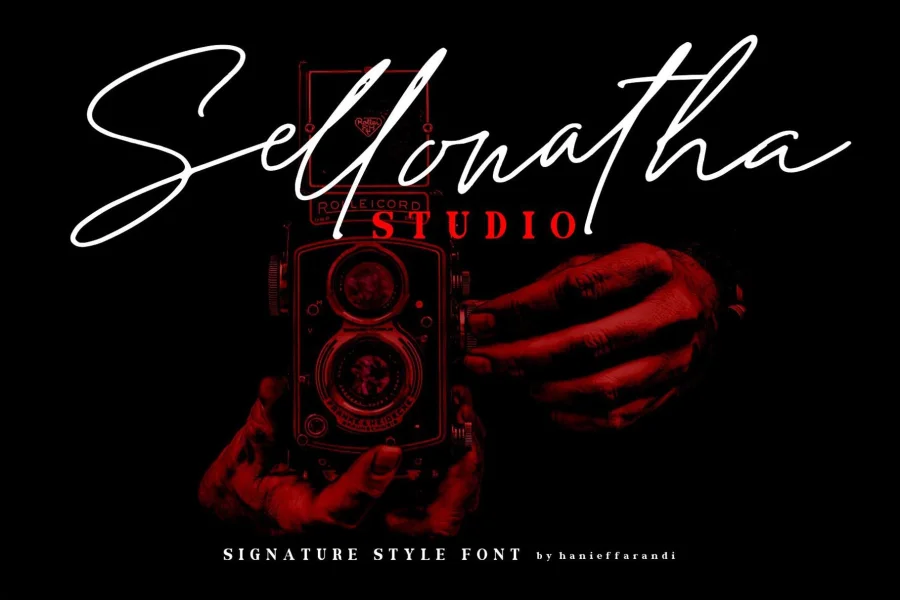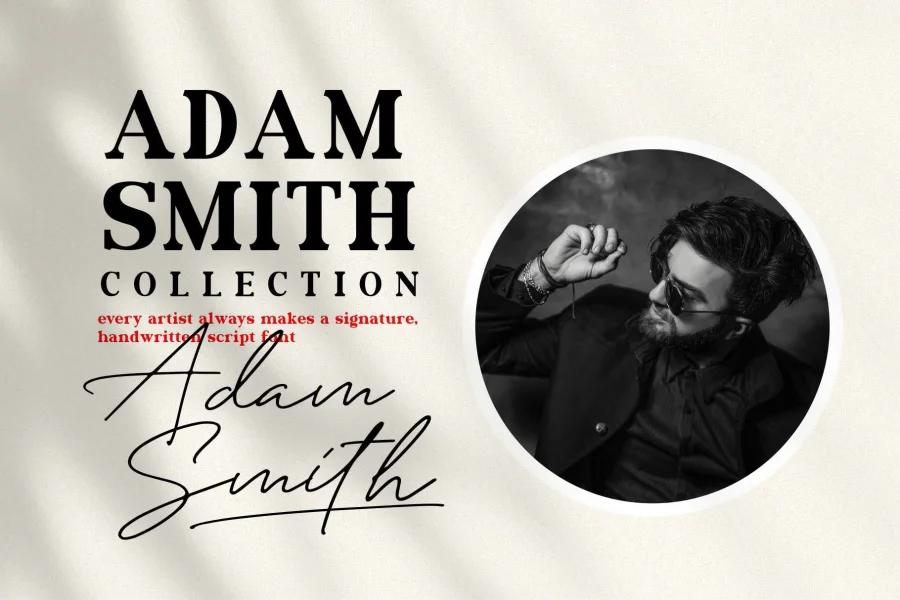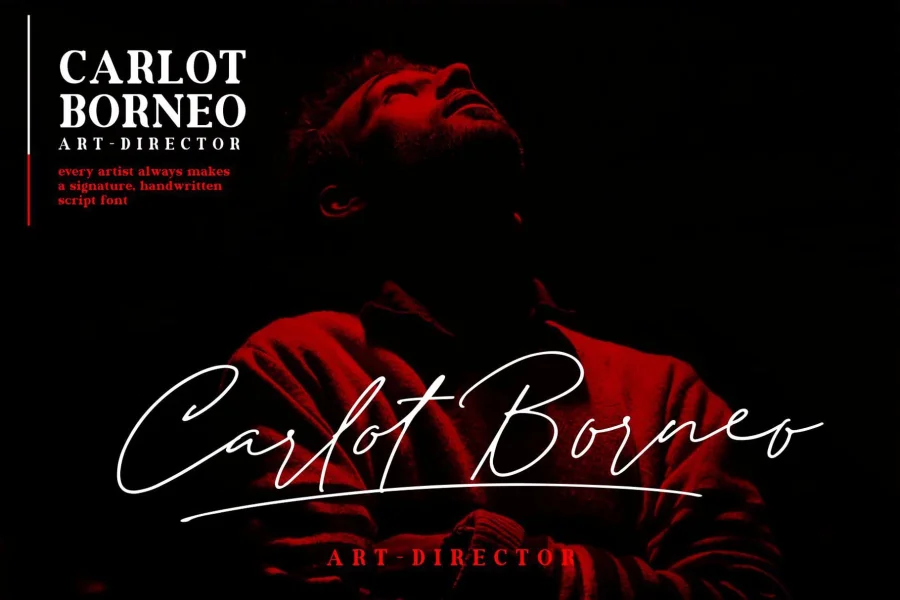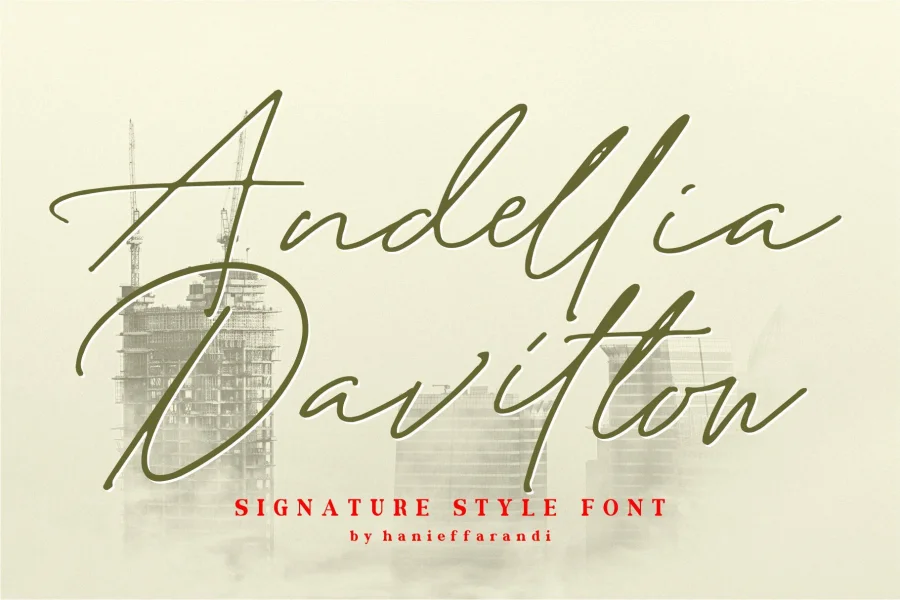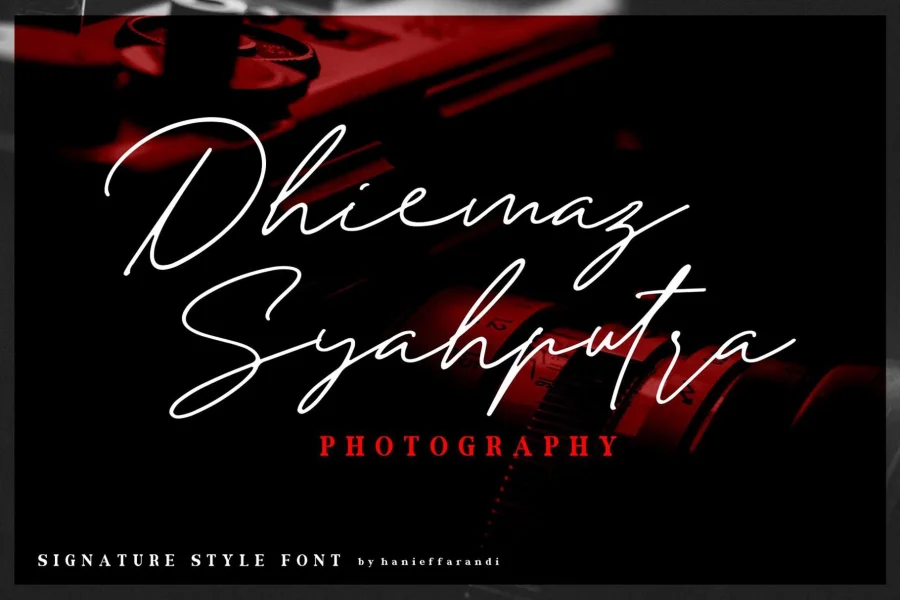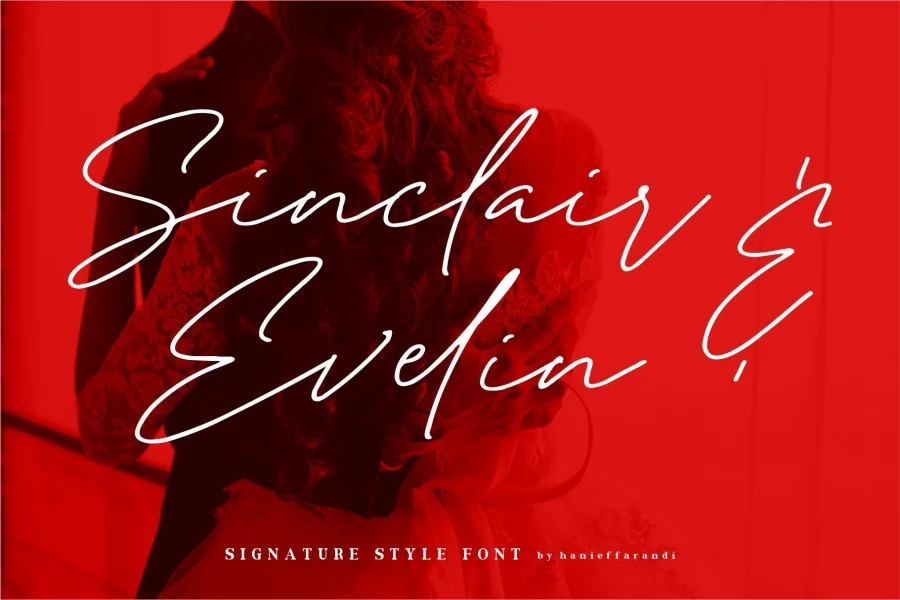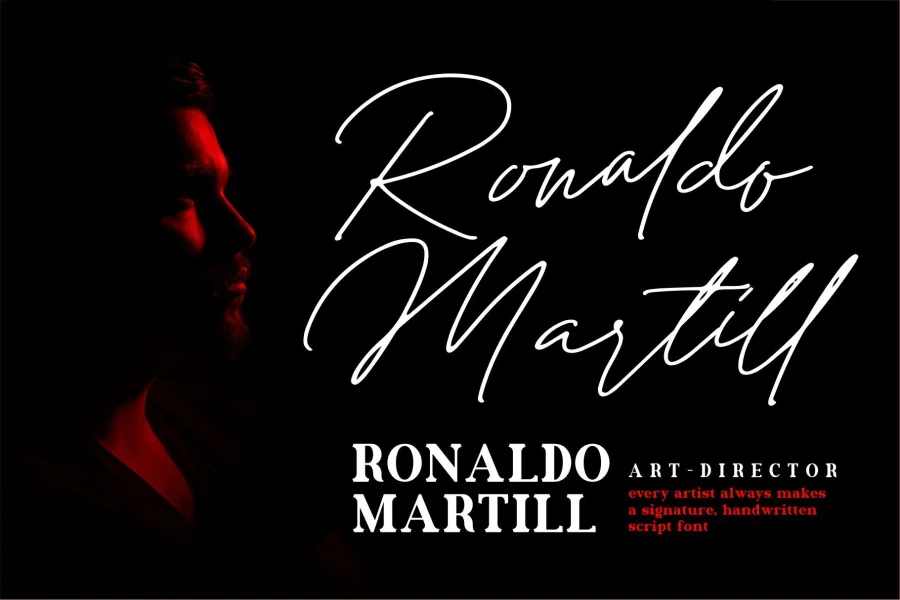
Andellia Davilton - Handwriting Font. Made from natural pen.
it will make your design project more beautiful.
The font is suitable for any design like branding, fashion,
print template, quotes, wedding and etc.